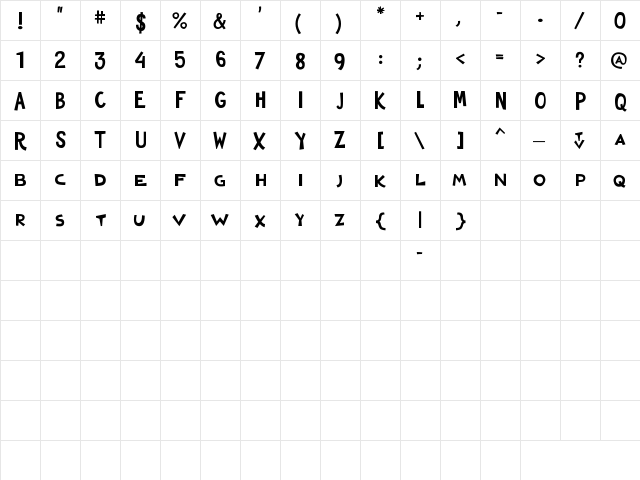
YTV 2000 Regular
| Designer | Daniel |
Design Context for YTV 2000 Typeface
YTV 2000 is a composed and adaptable typeface that performs quietly and consistently across a wide range of design contexts.